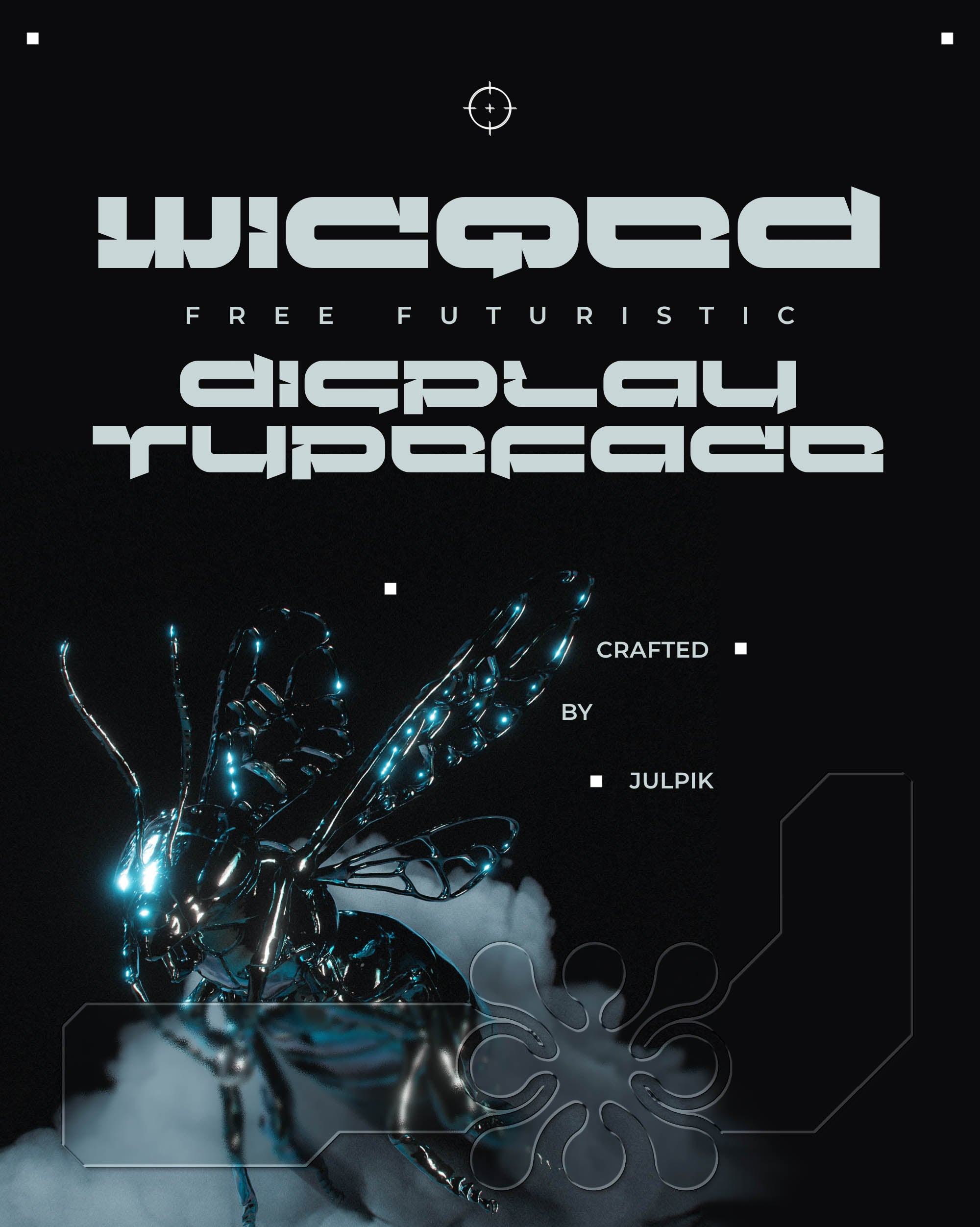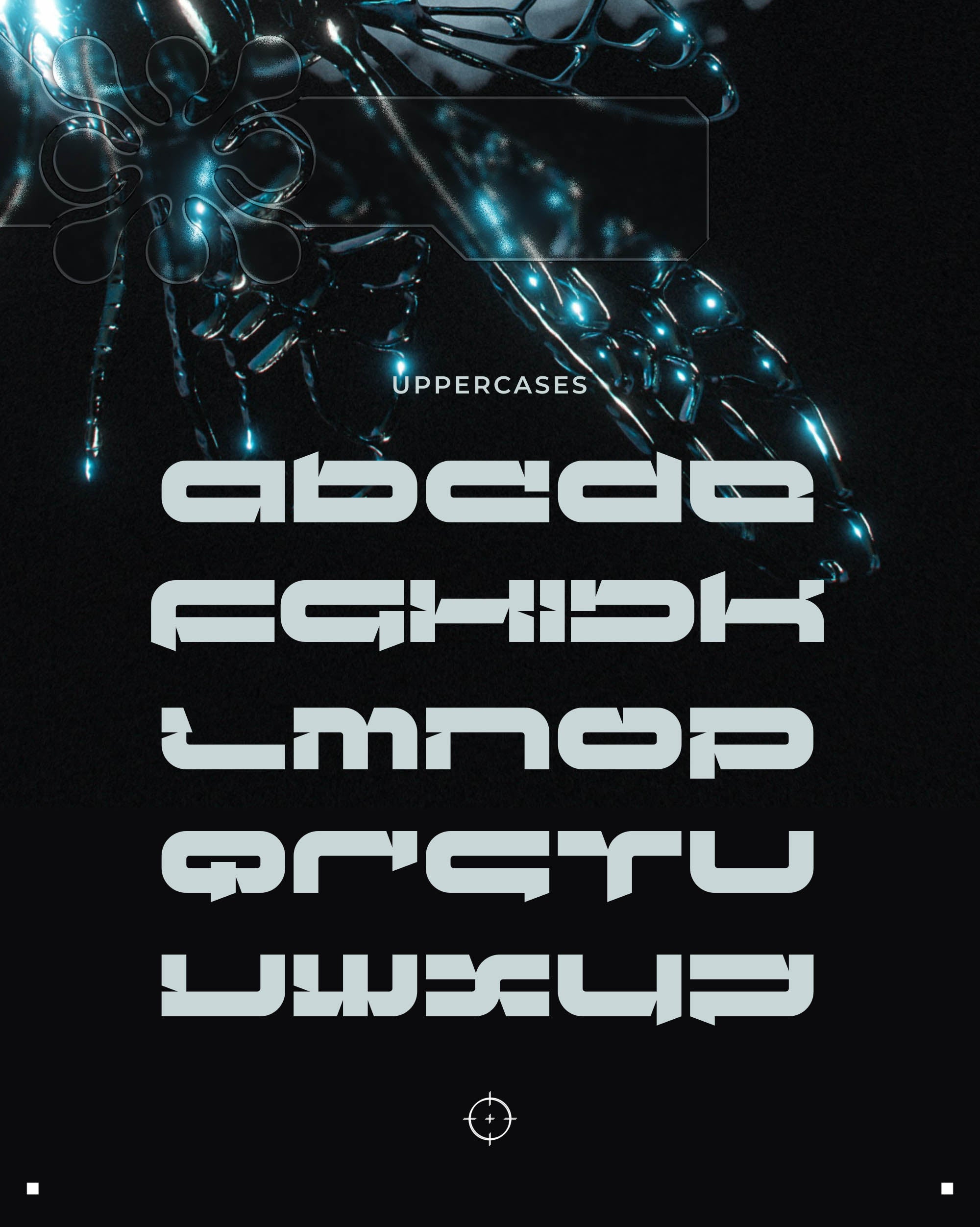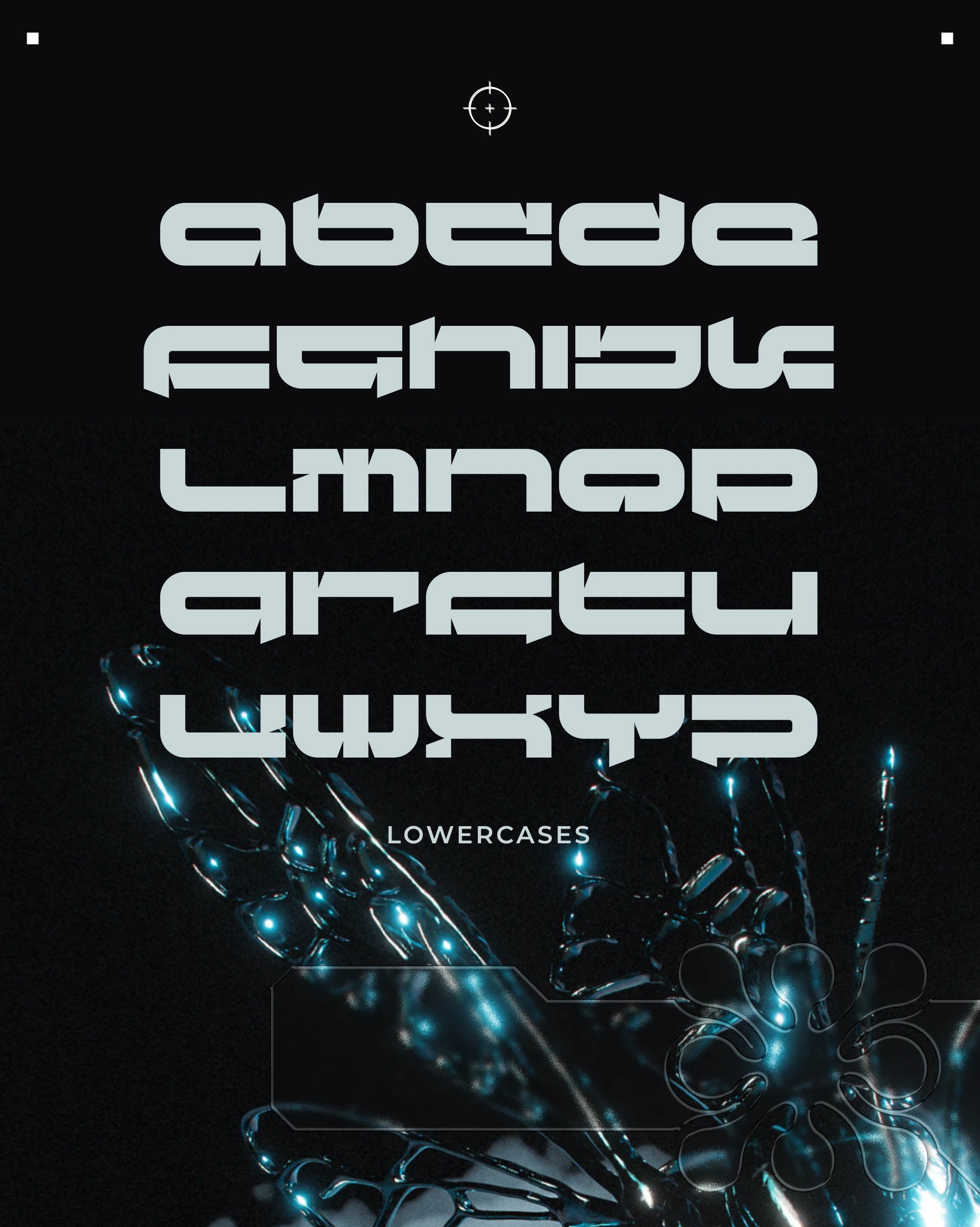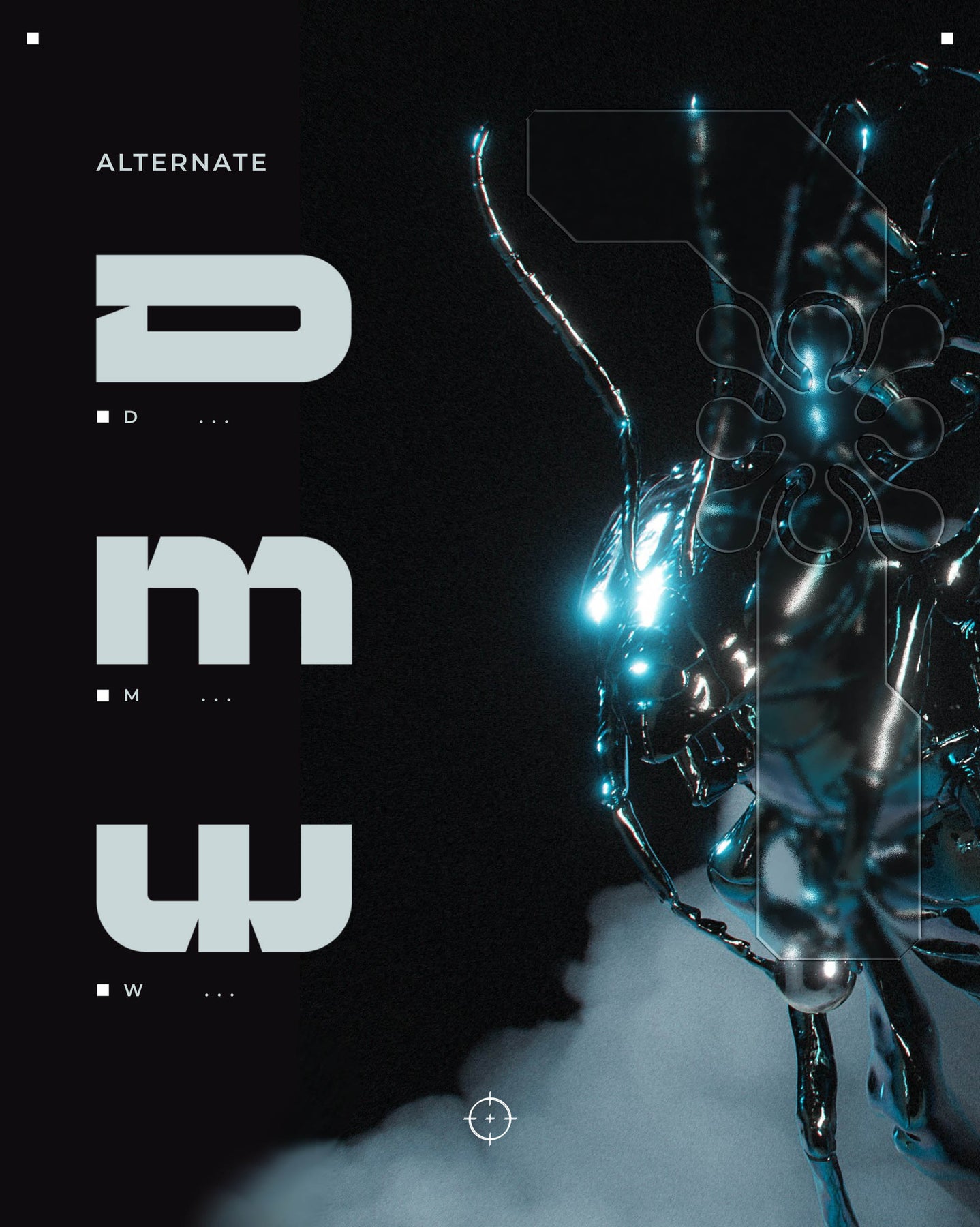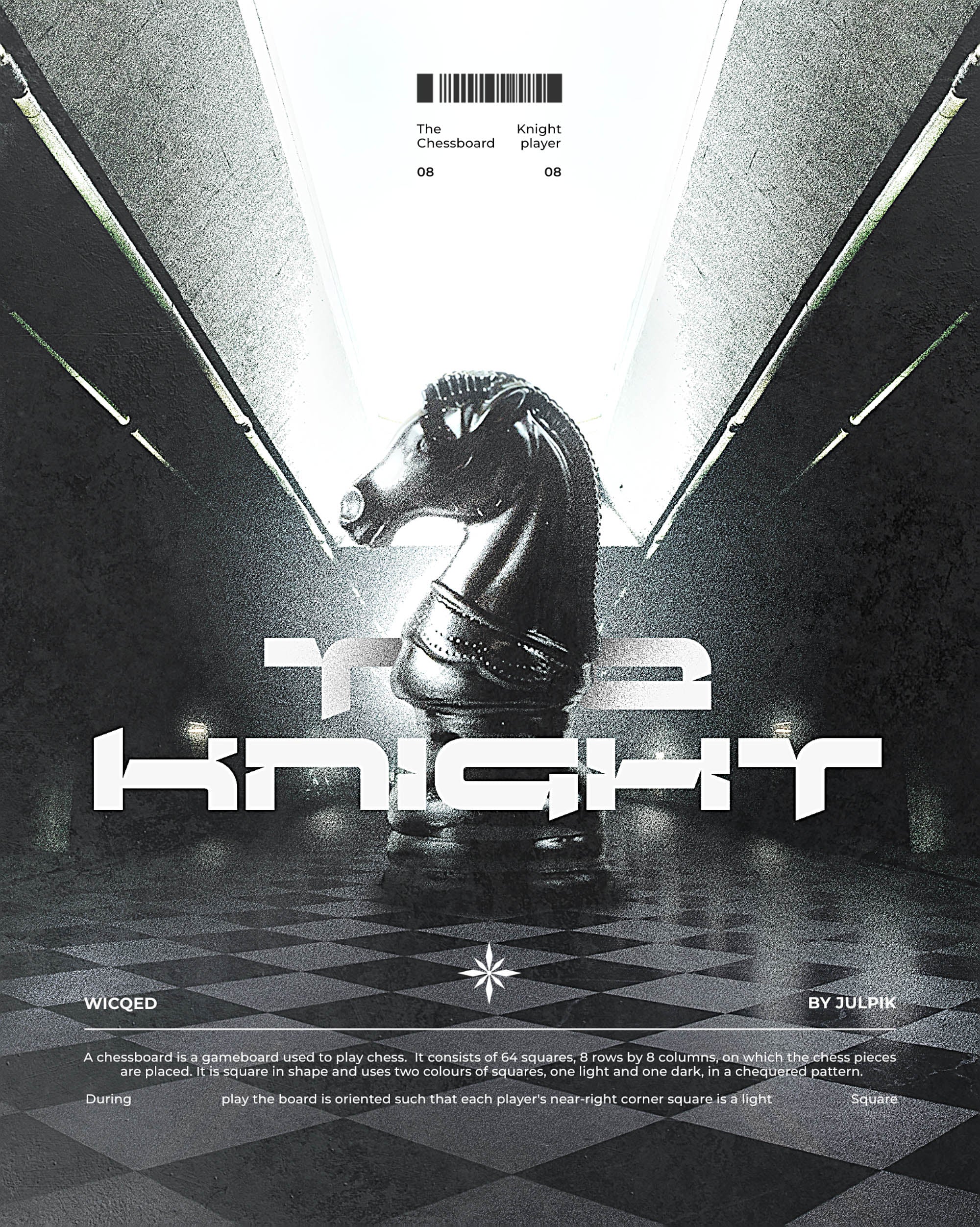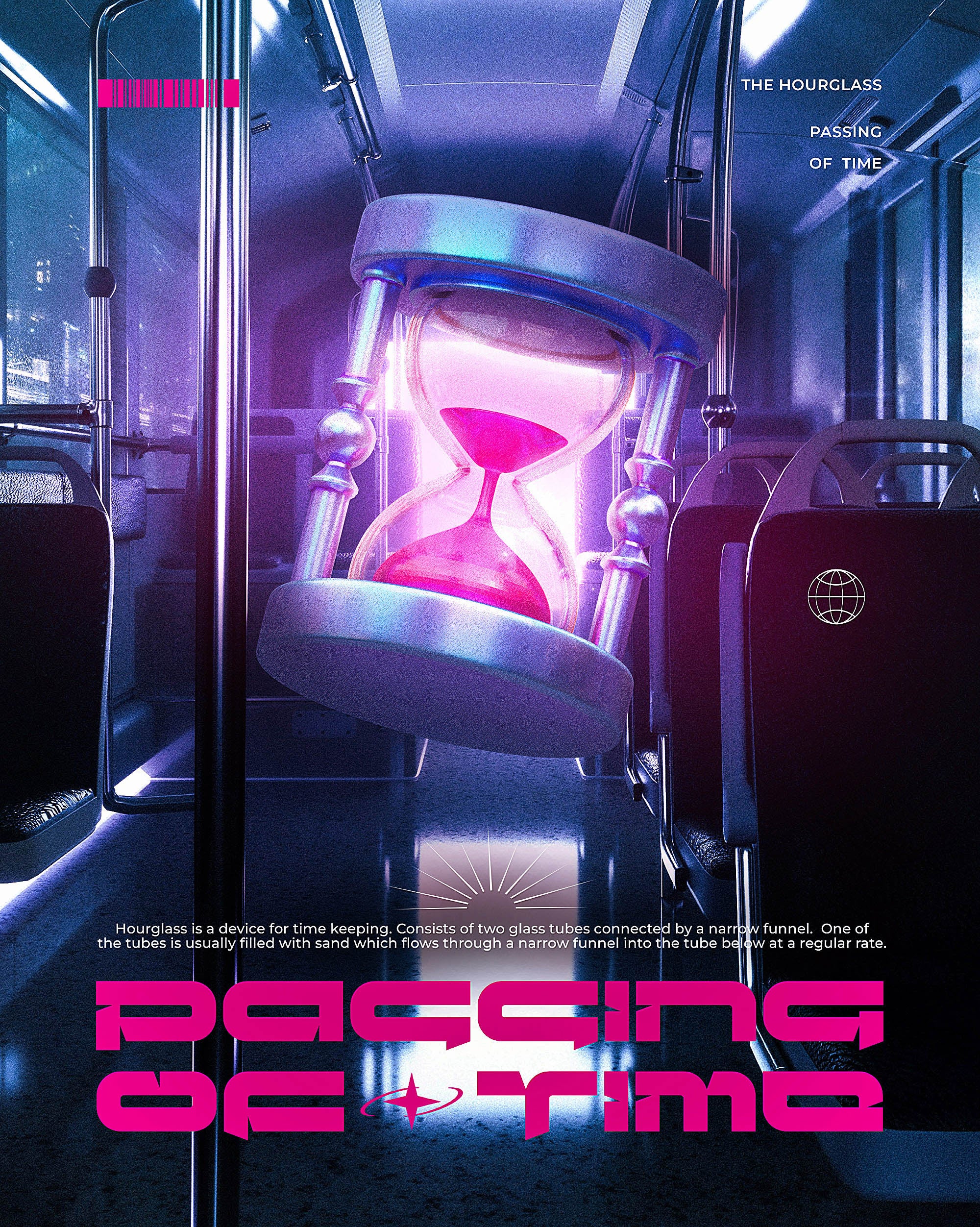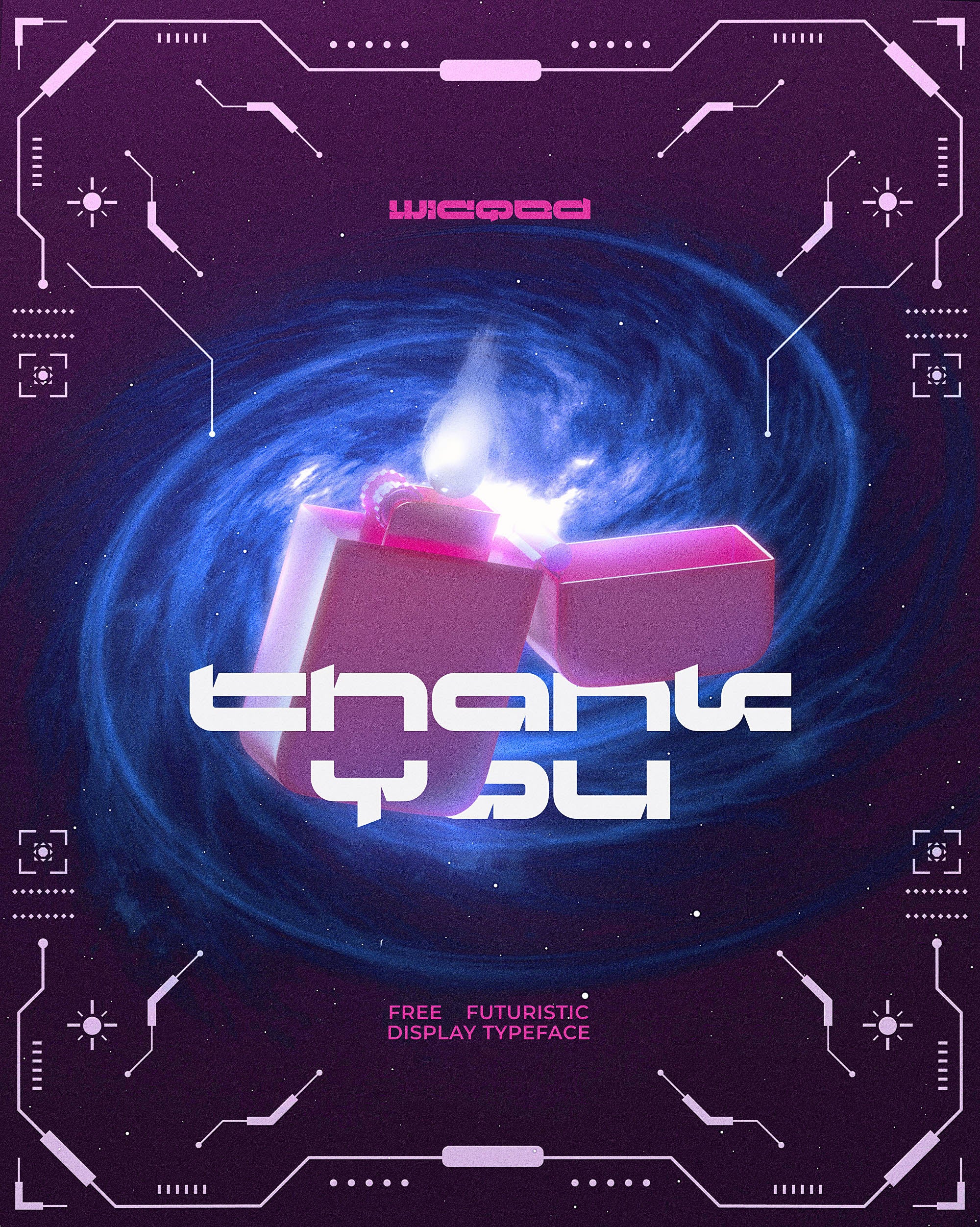
Wicqed Futuristic Typeface
Wicqed is a free futuristic display typeface by Julpik. The letters are bold, sharp edges and the demo version consist of uppercases and numbers. This typeface is suitable for poster design, logotype, clothing design, title design, and many more~!